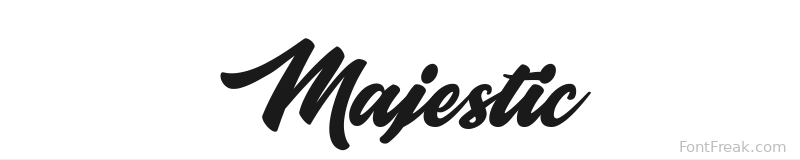
Majestic
About Majestic
The Majestic font by Billy Argel Fonts is a stunning script typeface that exudes elegance and sophistication. Its flowing, cursive style is characterized by smooth, sweeping strokes and a graceful rhythm that captures attention and inspires creativity. The font features a medium stroke weight with subtle contrasts, enhancing its legibility while maintaining a visually appealing aesthetic. The spacing between letters is balanced, ensuring that each character flows seamlessly into the next, making it perfect for a variety of design applications.
This versatile font is ideal for use in wedding invitations, where its romantic flair can set the tone for a special day. It also shines in branding materials for upscale restaurants, providing an inviting yet classy ambiance. Additionally, Majestic is well-suited for greeting cards and event posters, where its artistic flair can add a touch of personalization. Graphic designers and content creators will find it an excellent choice for social media graphics, as its unique style stands out in crowded feeds.
The target audience for Majestic includes graphic designers seeking to elevate their projects, small business owners aiming to create a memorable brand identity, and content creators looking to add a distinctive touch to their work. This font is a fantastic option for anyone wanting to convey a sense of luxury and creativity.